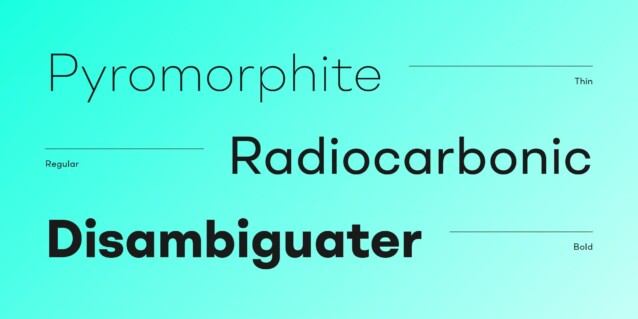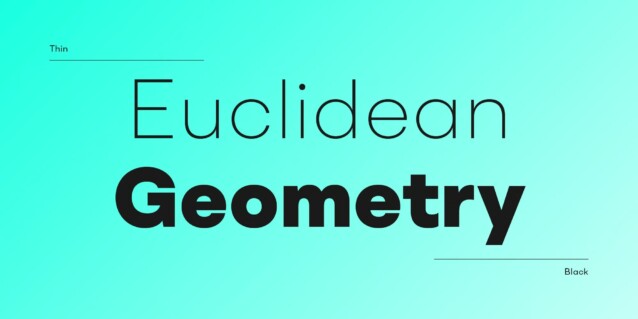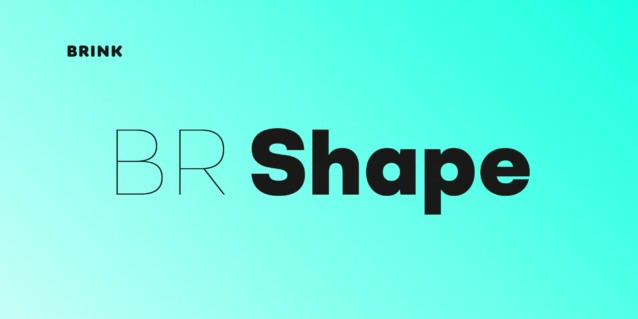
BR Shape Font Family
BR Shape Font is a sans-serif font family of 18 fonts, meticulously crafted with geometric shapes and inspired by modern sans-serif typefaces. Built with precision, simplicity and a subtle warmth. Flexibility is the founding principle around which BR Shape was designed. The family is open, accessible and puts content first. Perfect for displaying text with complete clarity and purity.
BR Shape is available in 18 finely crafted styles, with nine weights ranging from Hairline to Super. The fonts also provide advanced typographic support with OpenType features such as case sensitive forms, icons, stylistic alternates and multiple figure sets. Also containing advanced language support as standard.